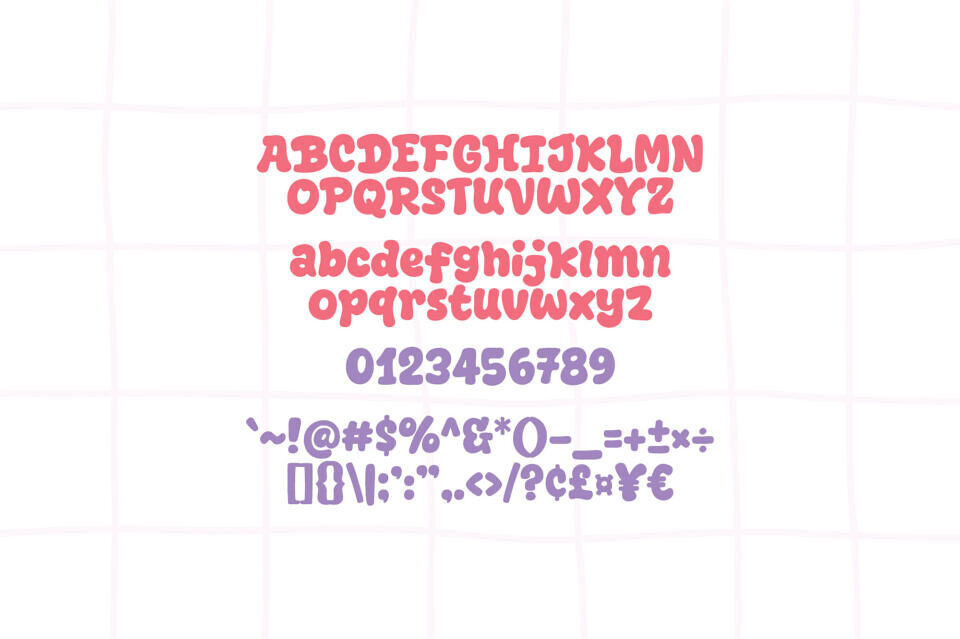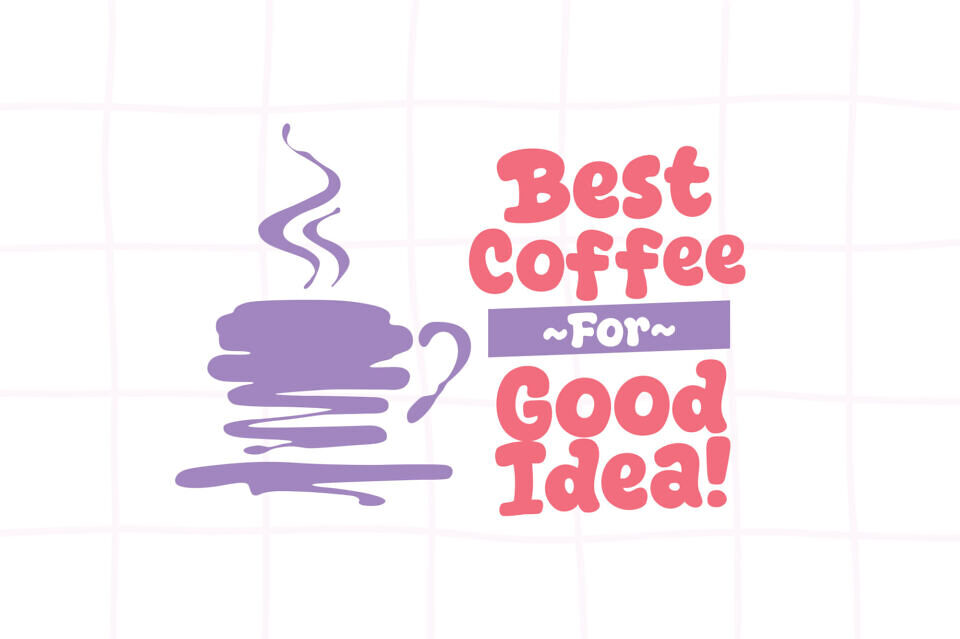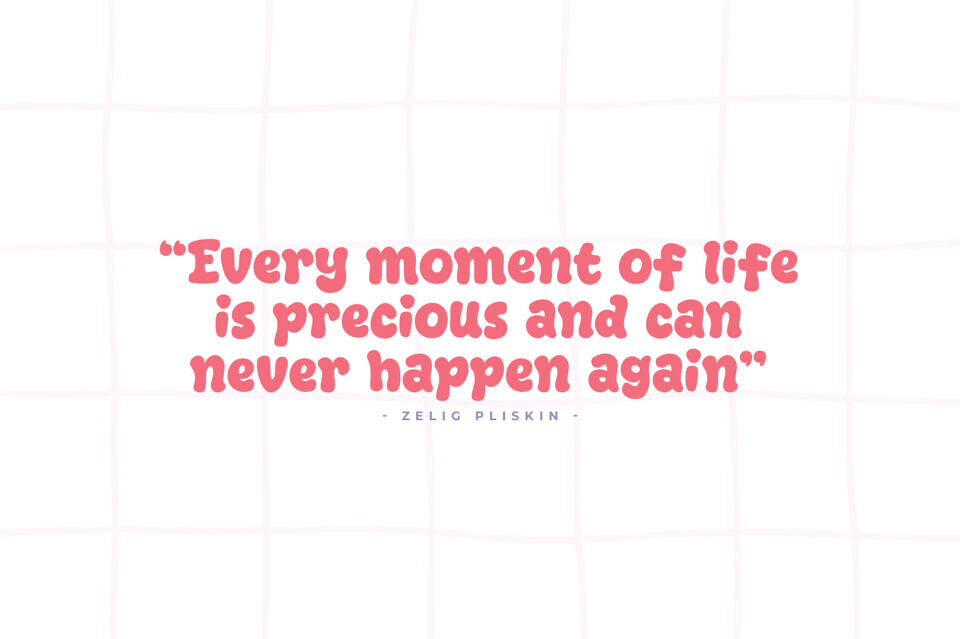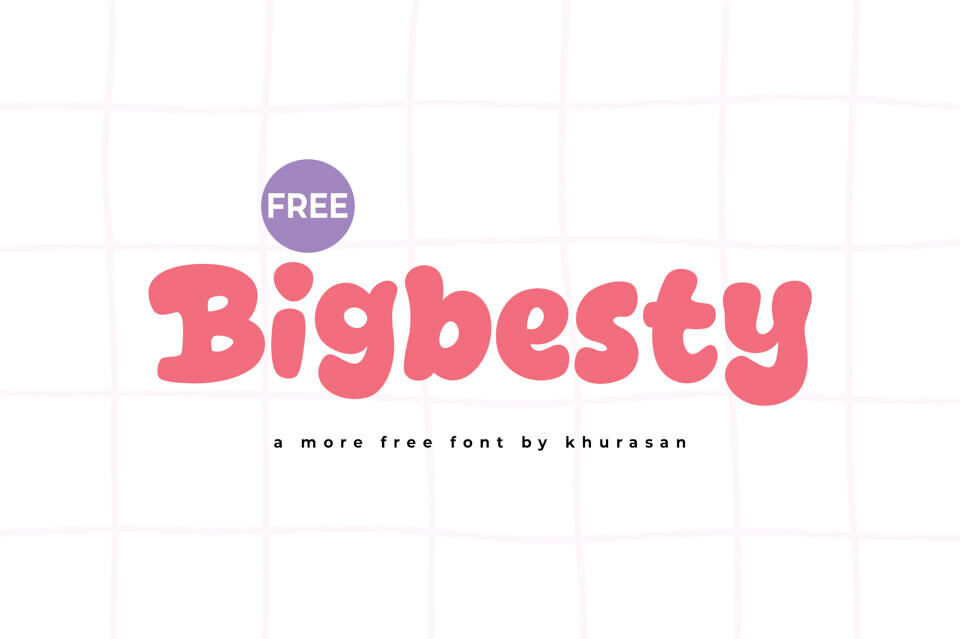
Bigbesty Font
Created by Khurasan, Bigbesty is a modern and cute display font perfect for posters, logos, magazines, book covers, banners, and many more!
Designed by: Khurasan (Syafrizal)